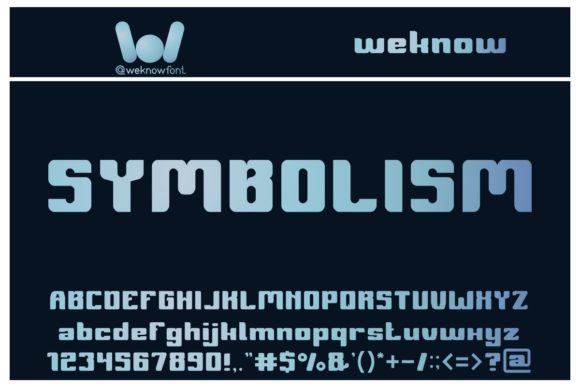
Dive into the world of Symbolism Font, the display font that will transform your creative visions into captivating realities. Crafted with meticulous attention to detail, Symbolism Font stands as a testament to the power of visual communication. Its elegant and intricate characters dance across the screen, captivating your audience and leaving a lasting impression. Imagine your designs, logos, and headlines adorned with the allure of Symbolism Font, attracting attention and igniting curiosity.
Symbolism Font is not merely a collection of letters and symbols; it's an artistic journey that takes you beyond the ordinary. Its versatility knows no bounds, making it the perfect choice for a wide range of projects. Whether you're designing a logo that exudes timeless sophistication, creating a movie poster that transports viewers to a realm of imagination, or crafting a website that demands attention, Symbolism Font is your trusted companion.
Step into the realm where creativity thrives and let Symbolism Font be your guide. Its bold and distinctive strokes command attention, while its intricate details invite closer exploration. Unleash the power of visual storytelling and craft designs that resonate with your audience. From corporate identities that exude professionalism to apparel designs that ooze style, Symbolism Font elevates your work to new heights.
In the world of social media, Symbolism Font shines as a beacon of originality. Whether you're captivating your audience on Instagram with visually stunning posts or engaging them through captivating YouTube videos, Symbolism Font ensures your content leaves an indelible mark. Let your designs dance off the screen, capturing hearts and igniting imaginations.
With Symbolism Font at your fingertips, you'll discover a treasure trove of creative possibilities. Its compatibility with various design software makes it a breeze to incorporate into your existing workflow. Effortlessly transform your ideas into stunning visuals, leaving a trail of enchantment wherever your designs go.
Join the creative revolution and embrace Symbolism Font, the ultimate display font that propels your designs to extraordinary heights. Let your imagination run wild as you explore its endless possibilities, creating masterpieces that captivate and inspire. The world of design awaits your arrival, are you ready to take the plunge?